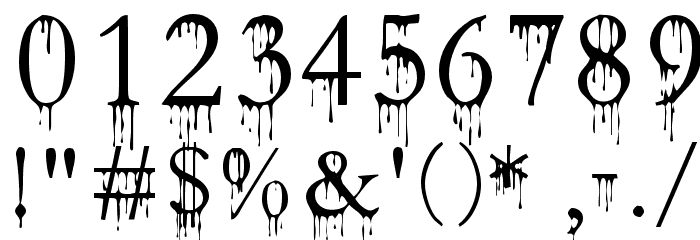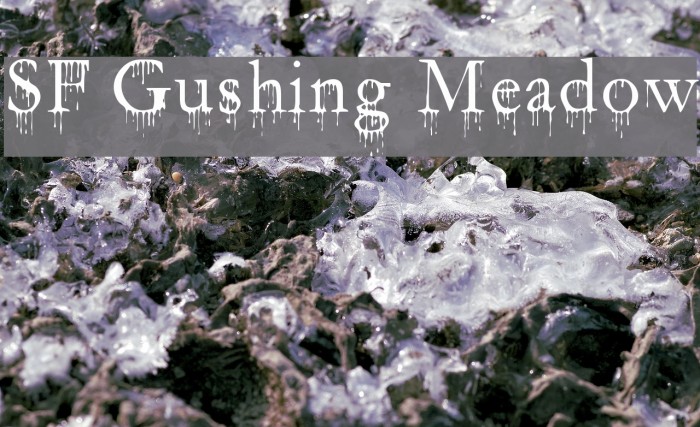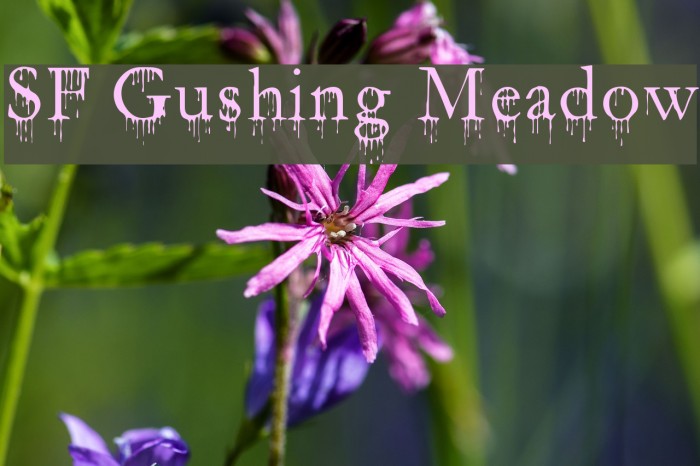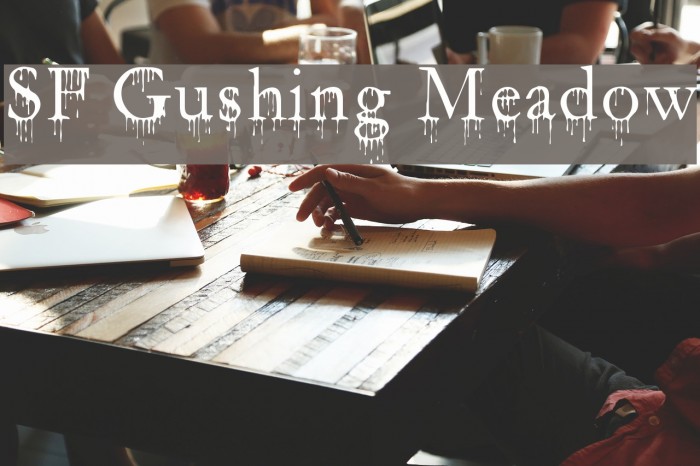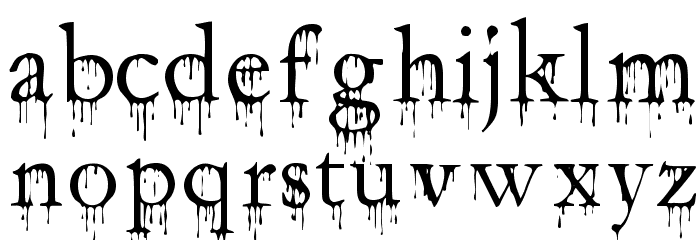
SF Gushing Meadow Font
SF Gushing Meadow Description
This font features a unique and dramatic design with a dripping effect that gives the impression of wet paint or ink. The characters are bold and have a slightly gothic appearance, with sharp serifs and a high contrast between thick and thin strokes. The dripping effect adds a sense of movement and fluidity, making it ideal for eye-catching designs. The uppercase and lowercase letters maintain a consistent style, while the numerals and special characters also incorporate the dripping motif, ensuring a cohesive look across all elements.
| Proposed Projects | Ideal for Halloween-themed designs, horror movie posters, edgy branding, or any project requiring a dramatic and eye-catching typeface. |